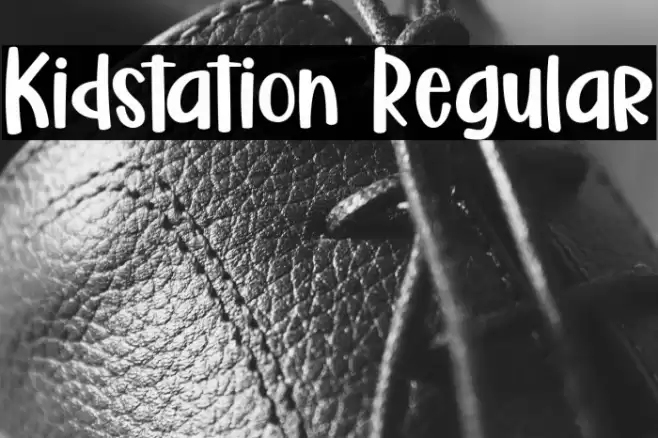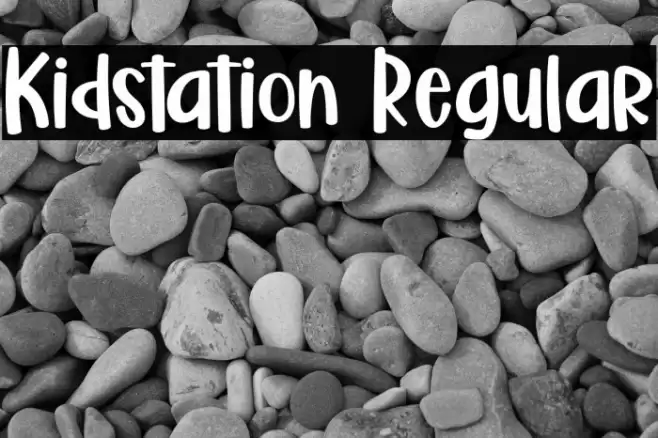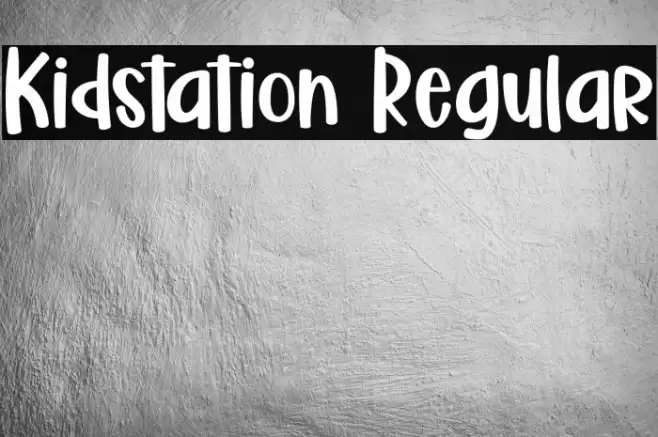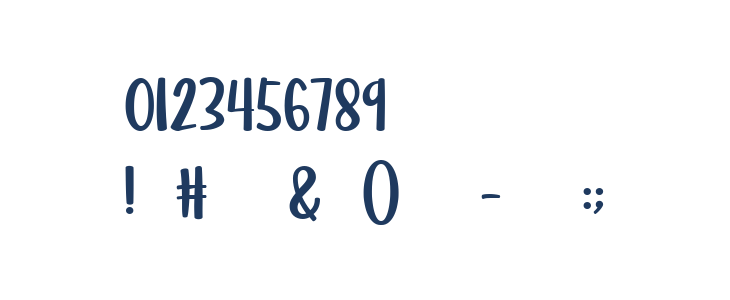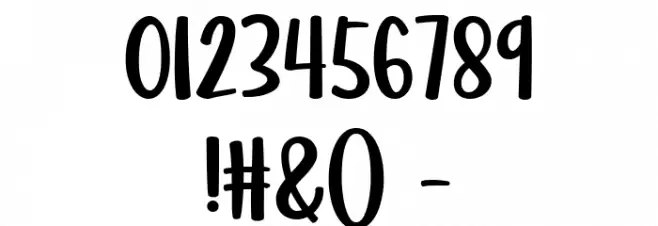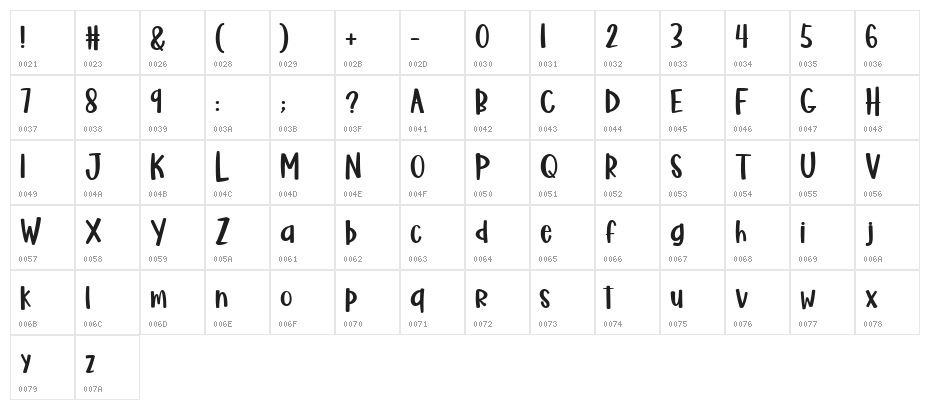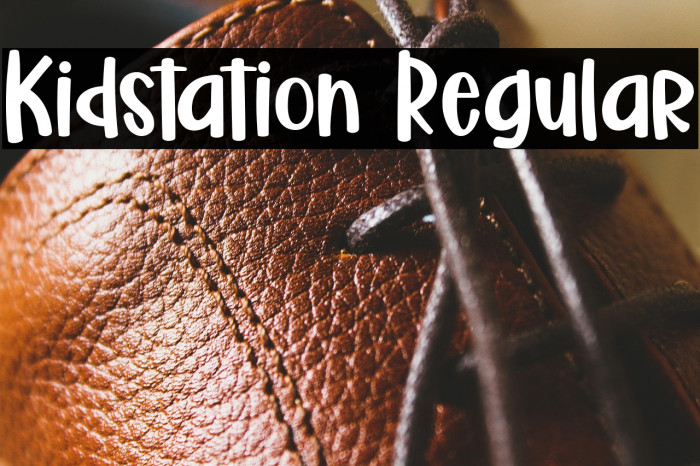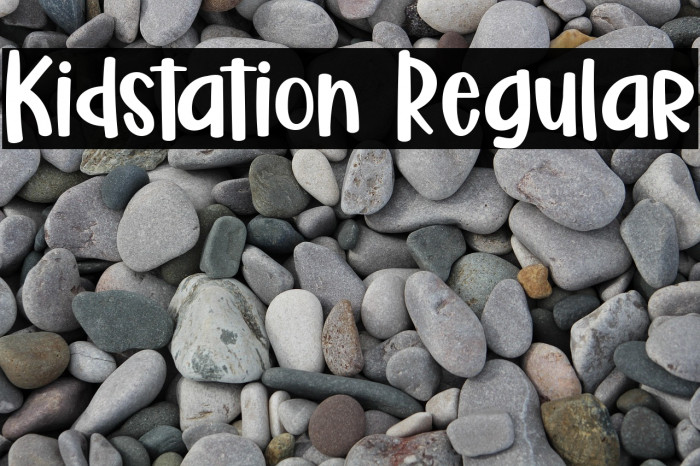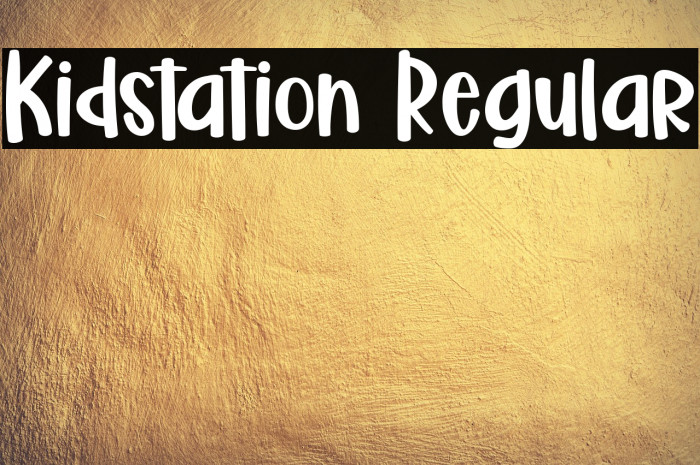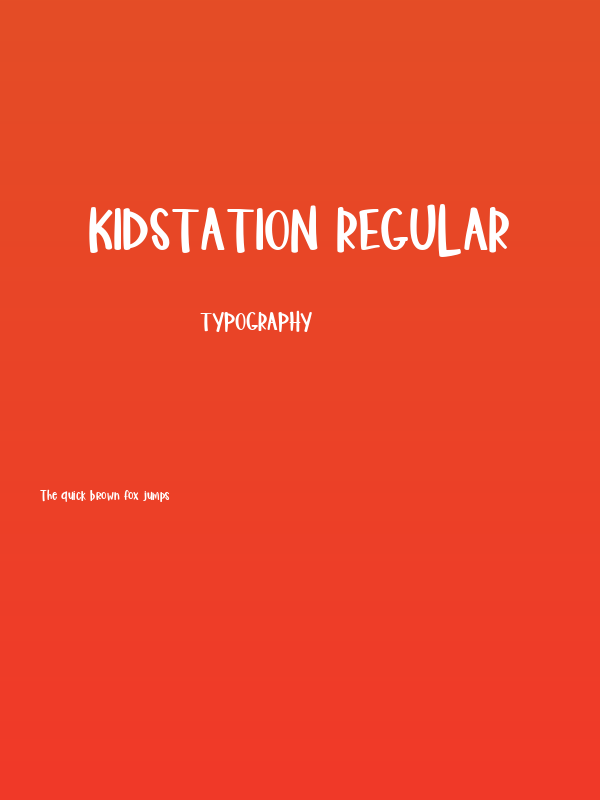
Kidstation Regular Font
Kidstation Regular Description
This playful and whimsical font features bold, rounded characters with a hand-drawn appearance. The letters are slightly irregular, adding a sense of fun and creativity. The uppercase and lowercase letters maintain a consistent style, with smooth curves and a friendly demeanor. The numbers and special characters complement the overall design, making it suitable for projects aimed at children or those requiring a lighthearted touch. The font's informal style is perfect for creating an inviting and approachable atmosphere.
A playful, hand-drawn font with bold, rounded characters from Cartoon fonts.
- Proposed Projects: Ideal for children's books, educational materials, playful branding, and creative posters.
- Overall Style: Playful